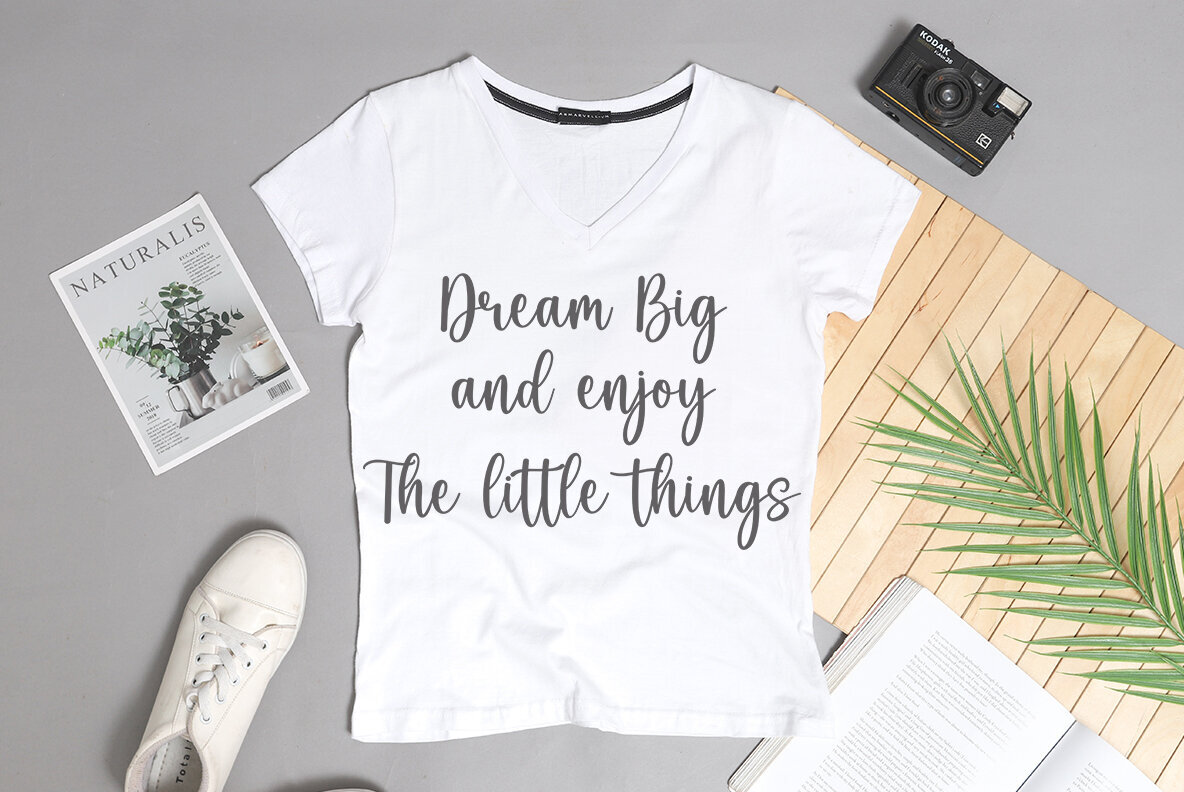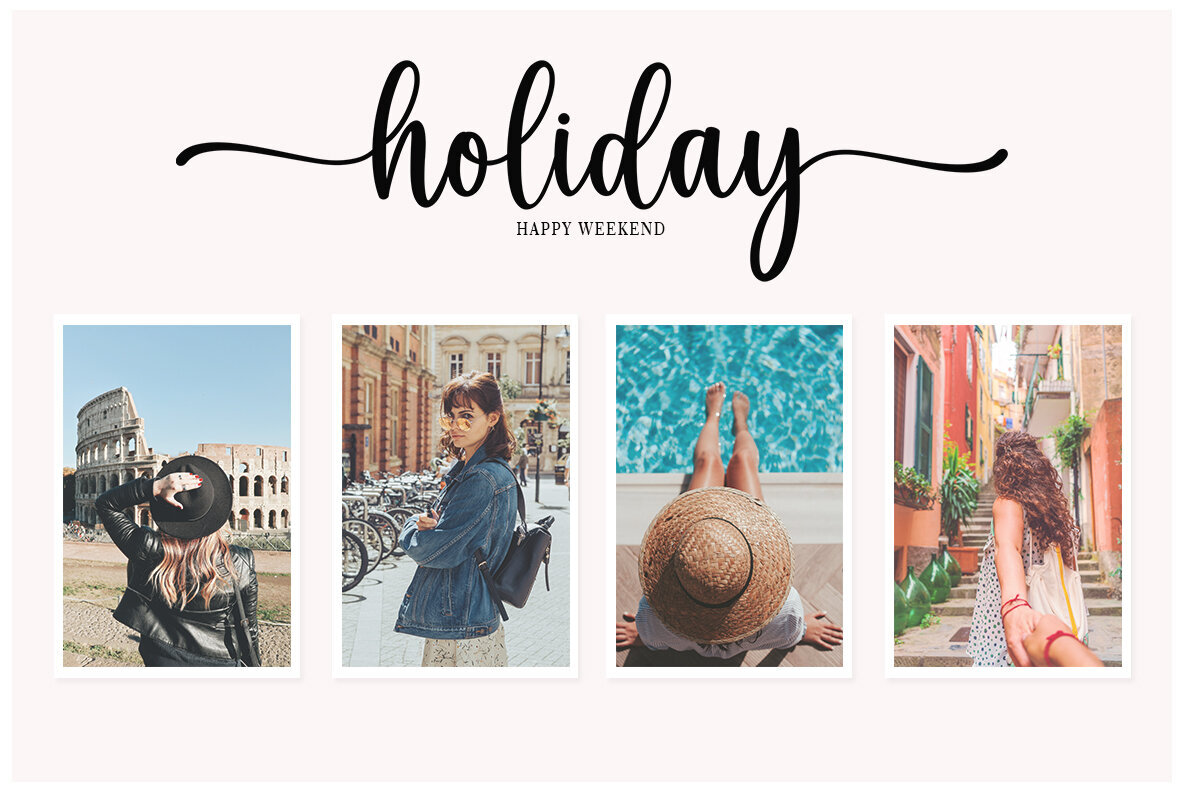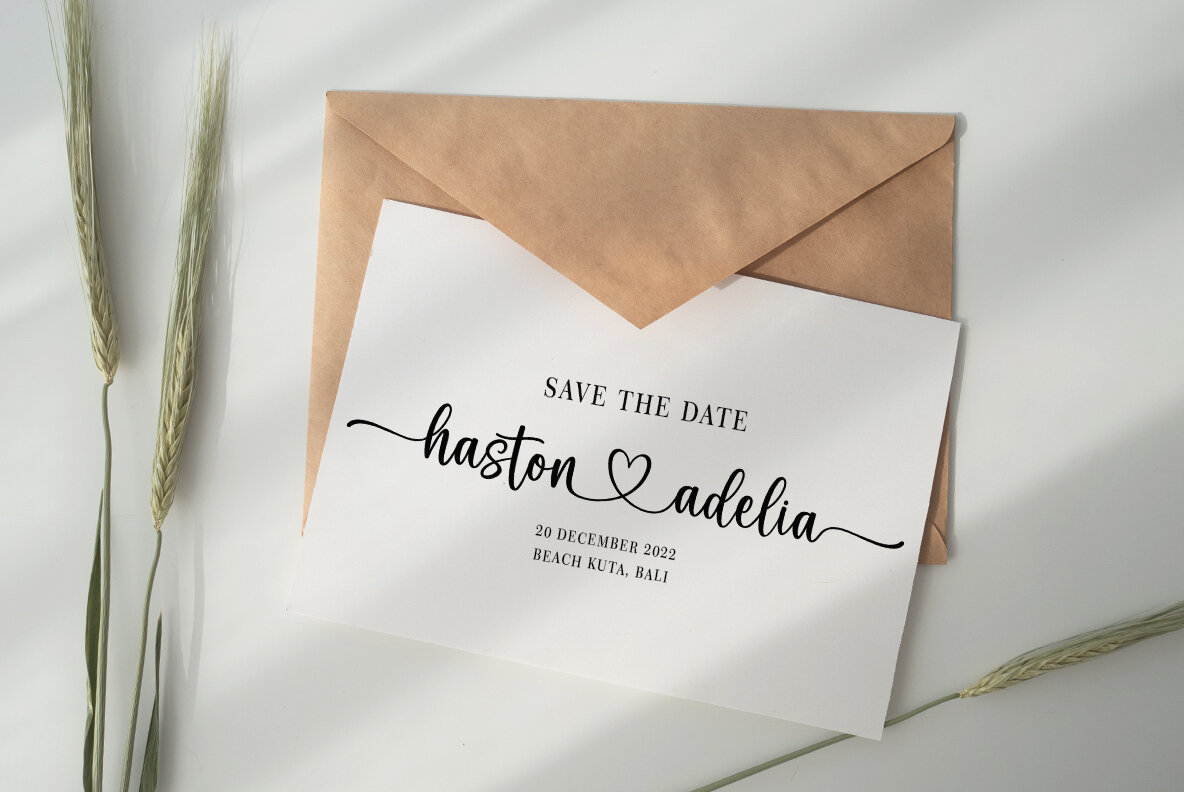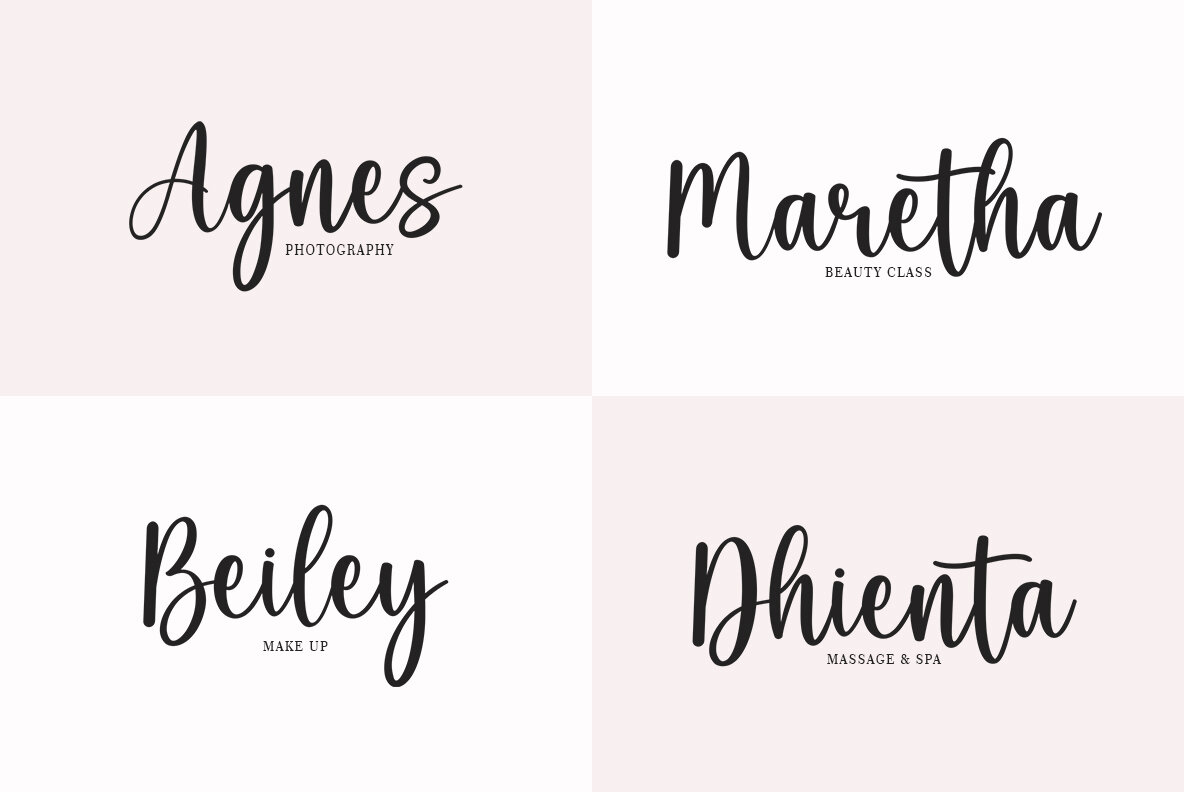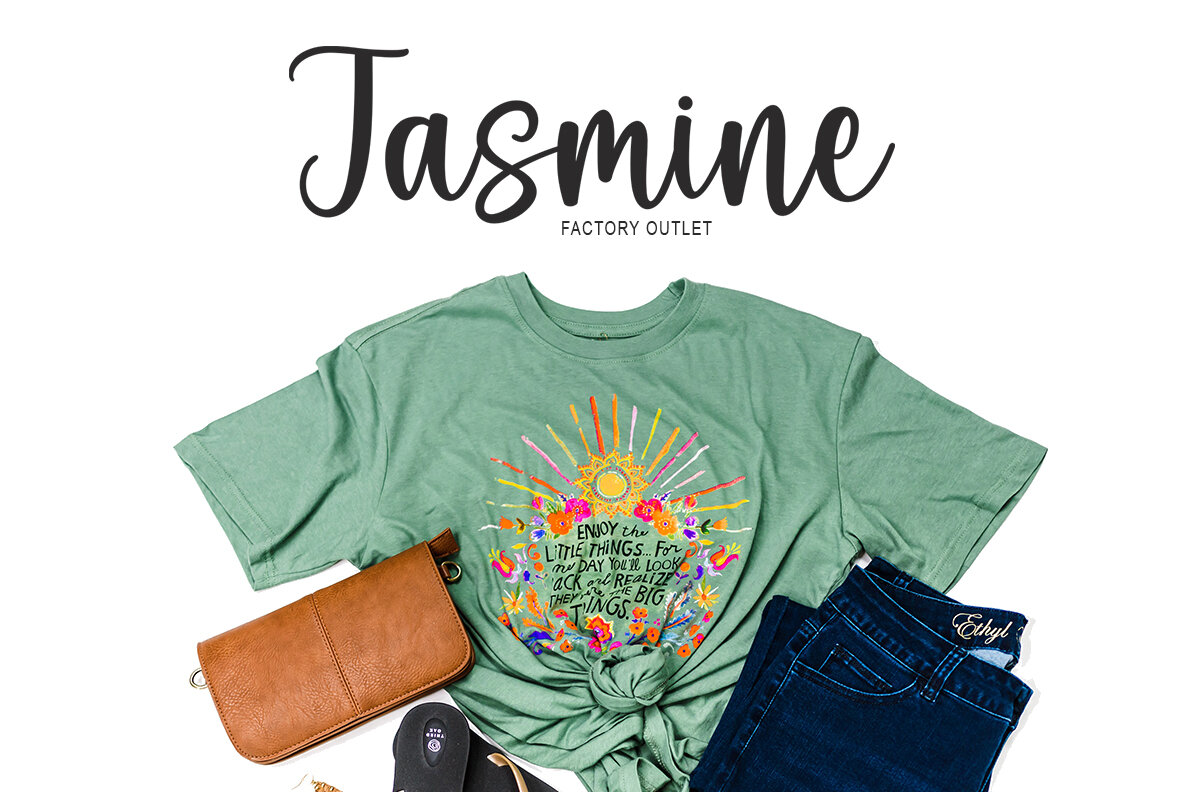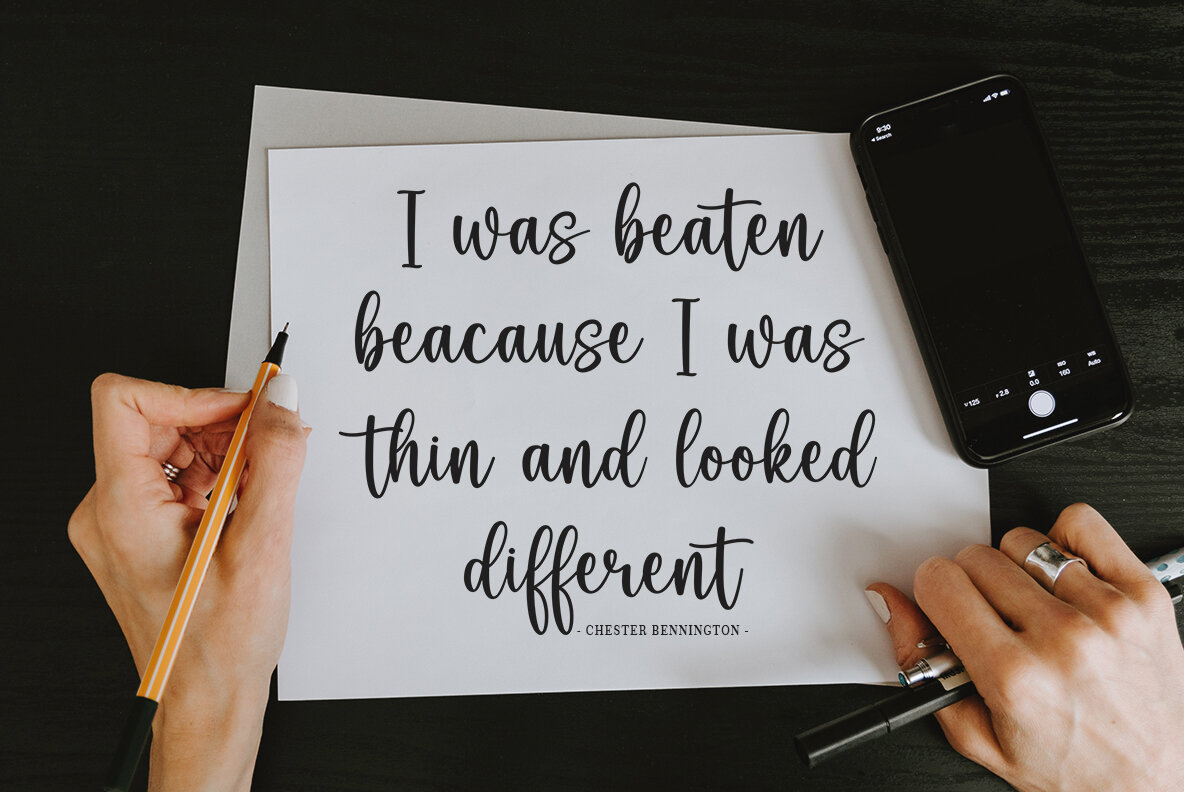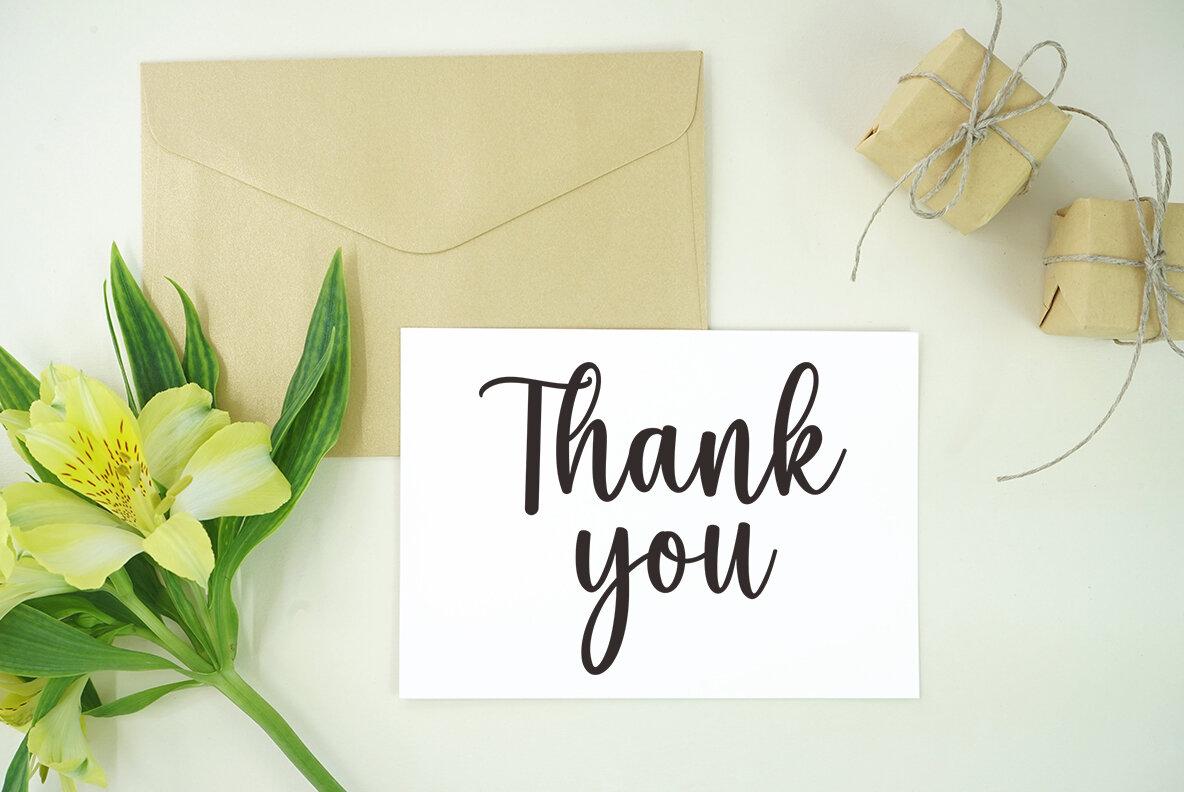
Marilyn Script Font
Marilyn Script
Marilyn Script is a modern handwritten font designed with a varying baseline, smooth lines, and an elegant touch. Perfect for creating a classic and sophisticated appearance, this font is ideal for a range of design projects, including invitations, branding, and social media graphics.Marilyn Script: Elegant Handwritten Font by Bosstype Studio